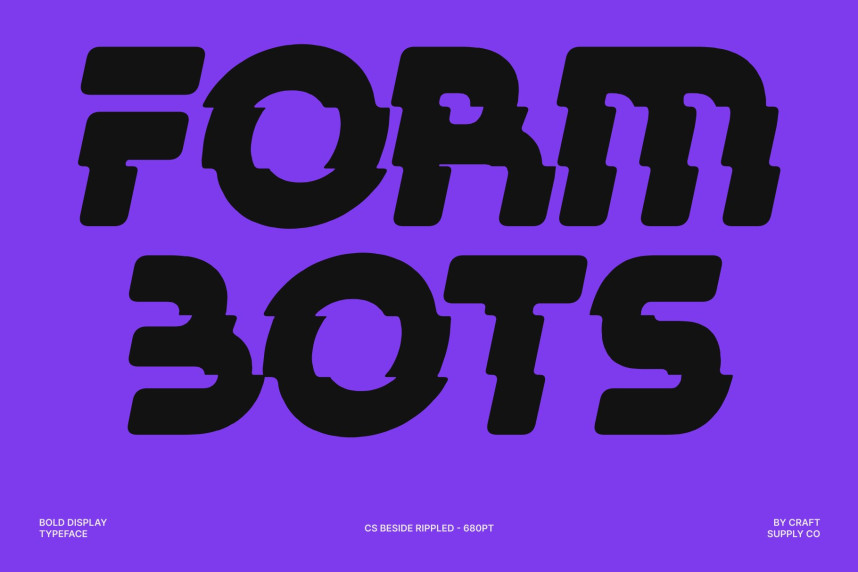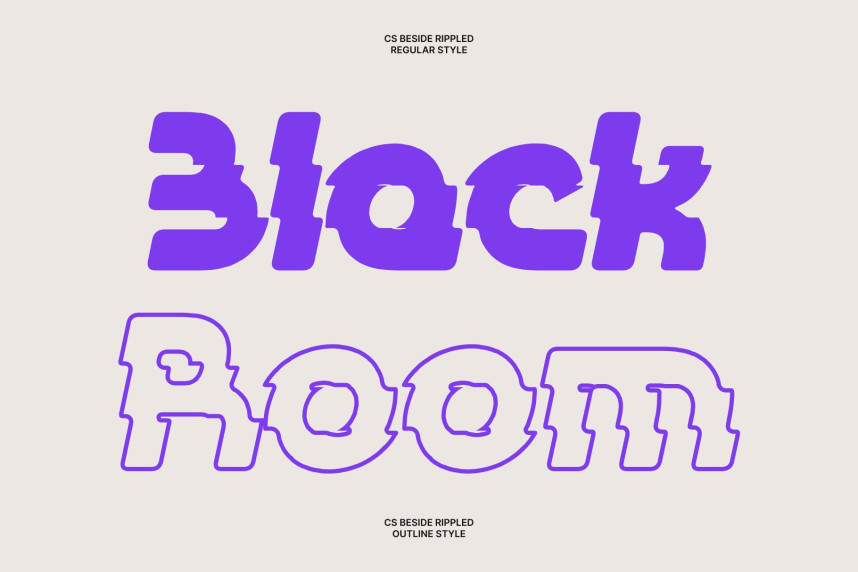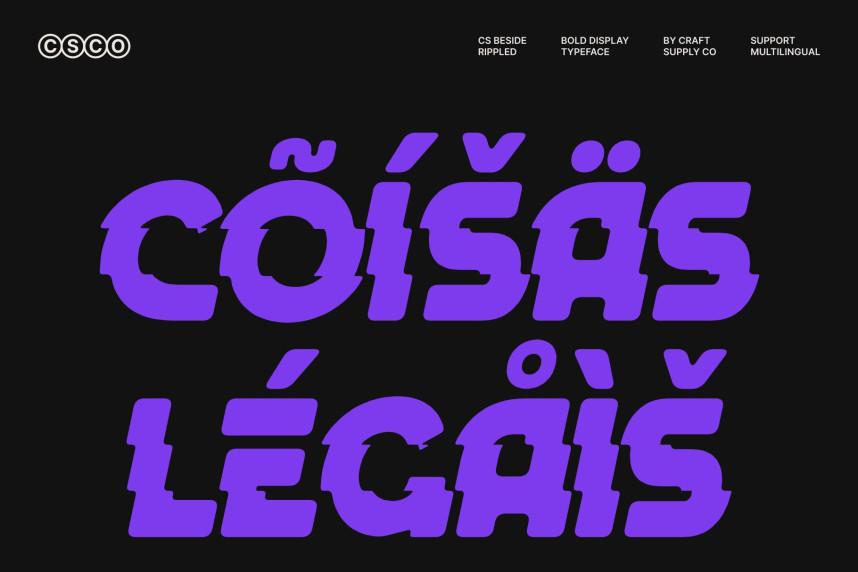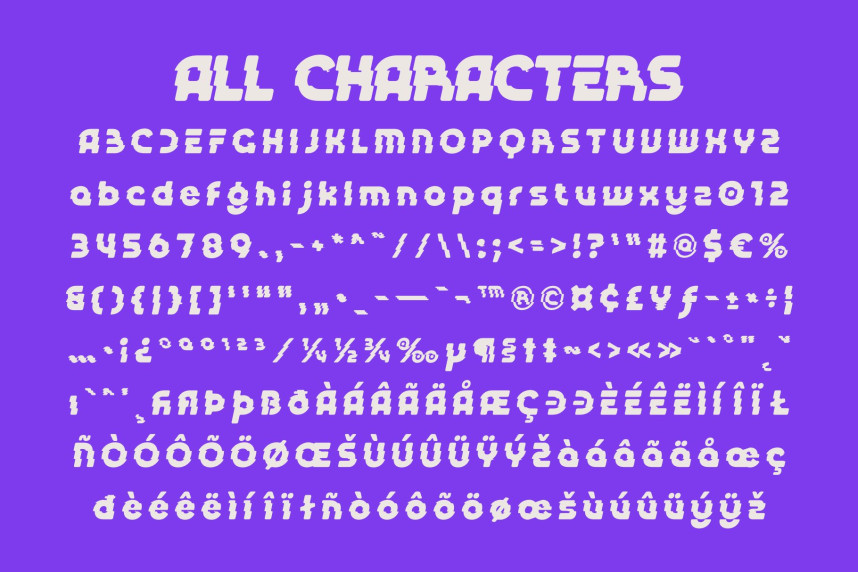
CS Beside Rippled Font – Bold Display Font: Where Futuristic Innovation Meets Fluid Wave Motion
Experimental Forms with Futuristic Impact
This is a bold display font designed to push visual boundaries with its experimental and futuristic character. Its strong letterforms and unconventional design create an immediate visual impact, making every word feel powerful, expressive, and impossible to ignore. The font’s striking presence is ideal for projects that demand attention and originality.